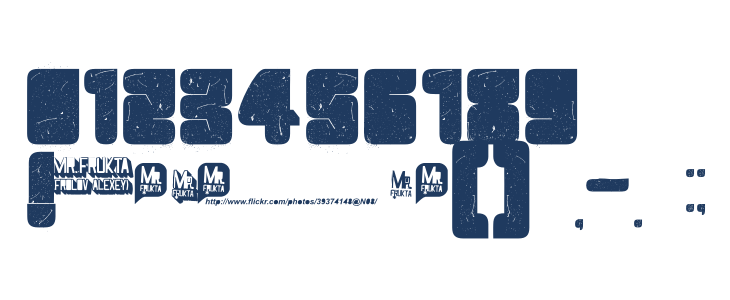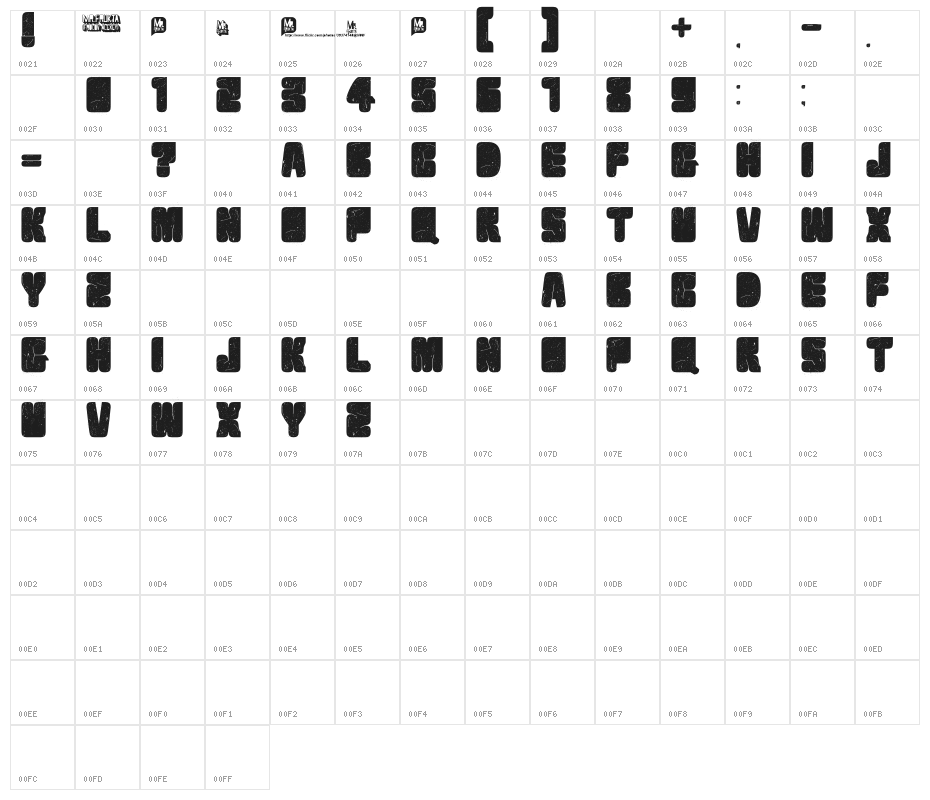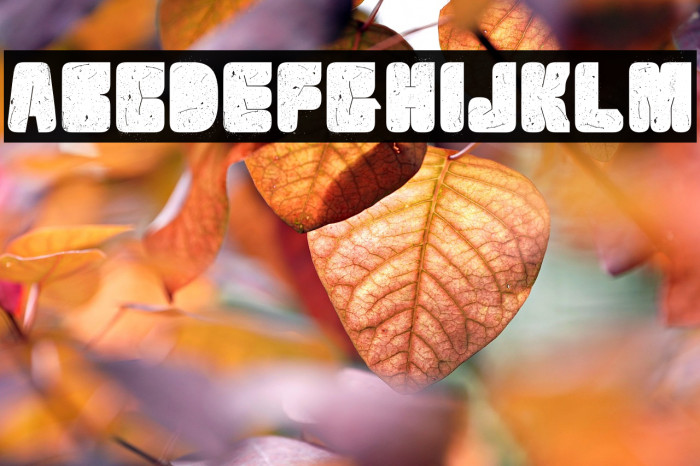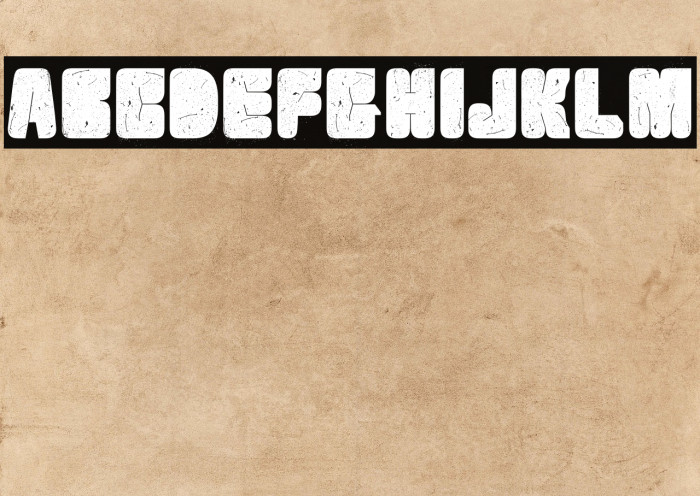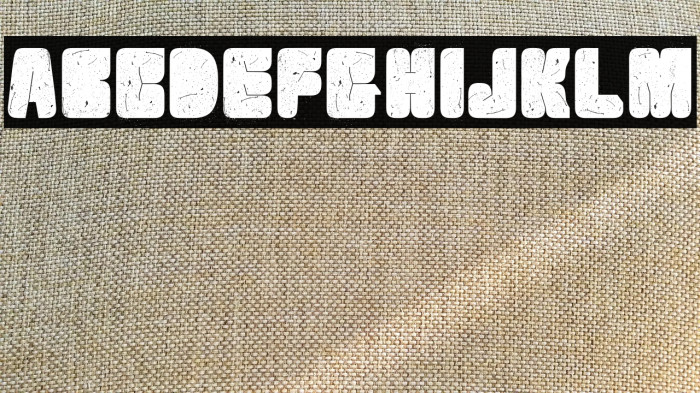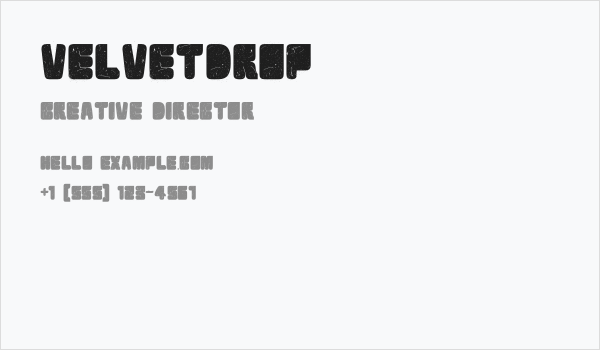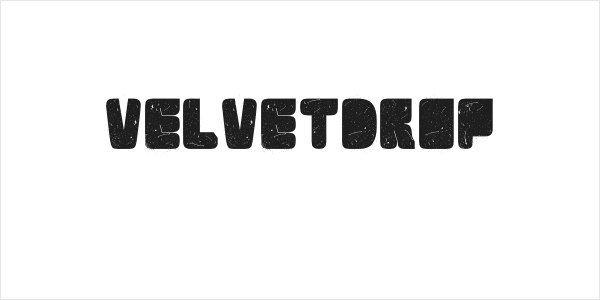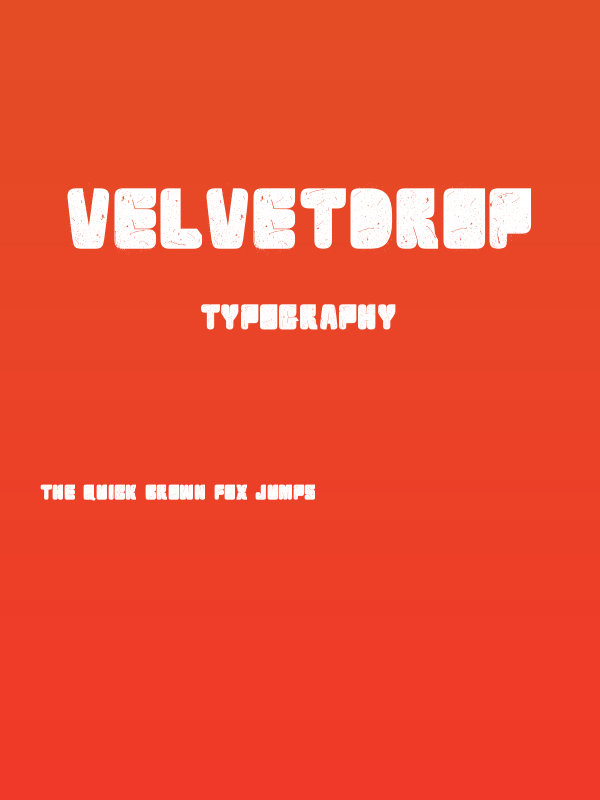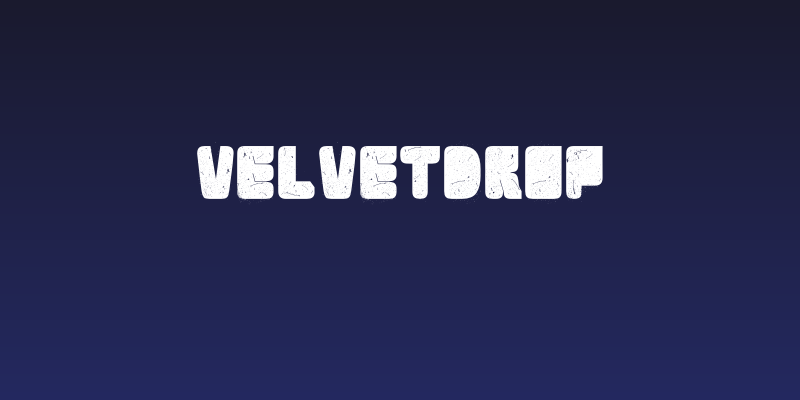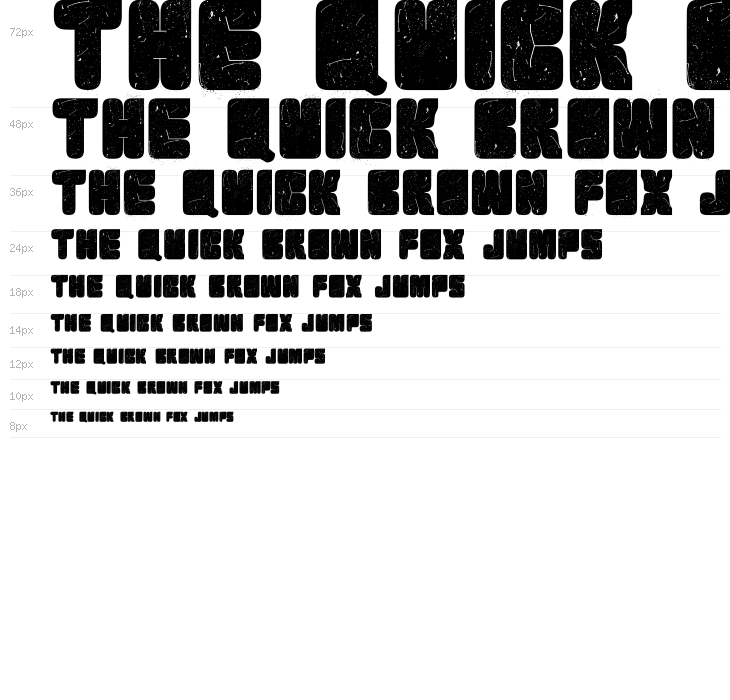
VelvetDrop Font
VelvetDrop Description
This font features a bold, chunky design with a distressed texture that gives it a rugged, vintage feel. The characters are rounded and thick, creating a strong visual impact. The distressed effect adds a layer of depth and character, making it ideal for projects that require a touch of nostalgia or a handcrafted look. The font maintains consistent thickness throughout, with minimal contrast in stroke width, emphasizing its boldness. Its unique style makes it stand out, suitable for creative and artistic applications.
| Proposed Projects | Ideal for posters, album covers, branding, and any project needing a bold, vintage aesthetic. |